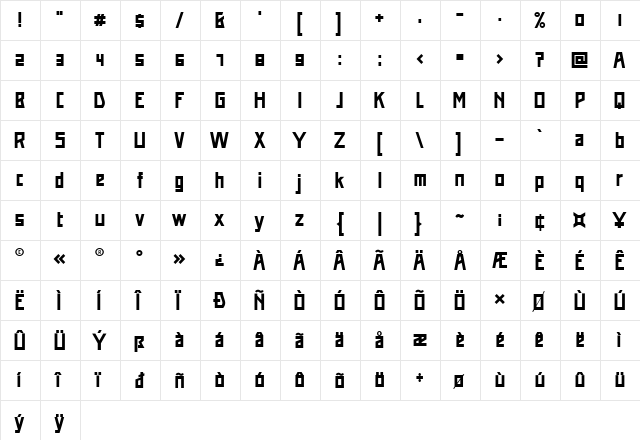
Addiction Regular
Design Context for Addiction Typeface
Addiction is a composed and adaptable typeface that performs quietly and consistently across a wide range of design contexts.